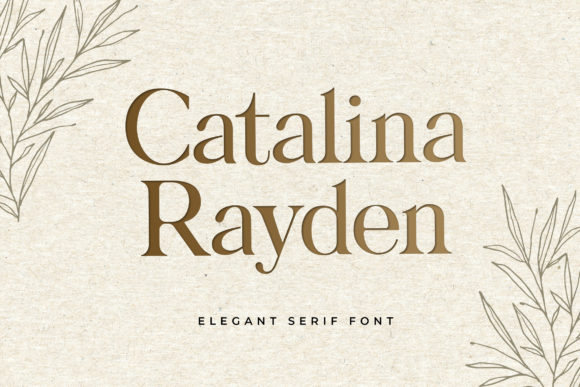
I still remember the frustration of working on a fashion branding project, only to hit a roadblock when it came to choosing the right font. My client wanted something stylish, modern, and sophisticated, but I just couldn’t seem to find the perfect fit. That was until I stumbled upon the Catalina Rayden Font. With its smooth curves and elegant serif design, it was love at first sight! ✨
A Personal Review of Catalina Rayden Font
As a designer, I’m always on the lookout for fonts that can elevate my projects and make them stand out. Here’s my honest review of the Catalina Rayden Font:
- ✨ Smooth curves: The font’s sleek and rounded curves make it perfect for fashion branding, editorial designs, and any project that requires a touch of sophistication.
- ✅ Modern and stylish: Catalina Rayden Font has a contemporary feel that’s sure to impress your clients and elevate your designs.
- 💯 Versatile: This font can be used for a wide range of projects, from logos and headings to body text and captions.
While I absolutely love the Catalina Rayden Font, there are a few minor quirks to be aware of:
- ⚠️ Limited availability of certain glyphs: Some users have reported that certain glyphs, such as the Euro symbol, are not available in all versions of the font.
- 🤔 Requires careful kerning: As with any serif font, kerning can be a bit tricky, especially when pairing Catalina Rayden with other fonts.
The Story Behind Catalina Rayden Font
The Catalina Rayden Font was designed by a team of typographers who wanted to create a font that would capture the essence of modern luxury. Inspired by the smooth curves and elegant lines of high-end fashion, the font was designed to be versatile, sophisticated, and stylish. Whether you’re working on a fashion branding project or an editorial design, the Catalina Rayden Font is sure to impress.
| Font Name | Catalina Rayden Font |
| Author | uicreativenet |
Q: What is the Catalina Rayden Font?
A: The Catalina Rayden Font is a stylish and modern serif font designed for fashion branding, editorial designs, and other creative projects.
Q: Is the Catalina Rayden Font suitable for body text?
A: While the Catalina Rayden Font can be used for body text, it’s primarily designed for headlines and titles. For longer blocks of text, you may want to consider a more traditional serif font.
Q: Is the Catalina Rayden Font available in different weights?
A: Yes, the Catalina Rayden Font is available in multiple weights, making it versatile and suitable for a wide range of projects.